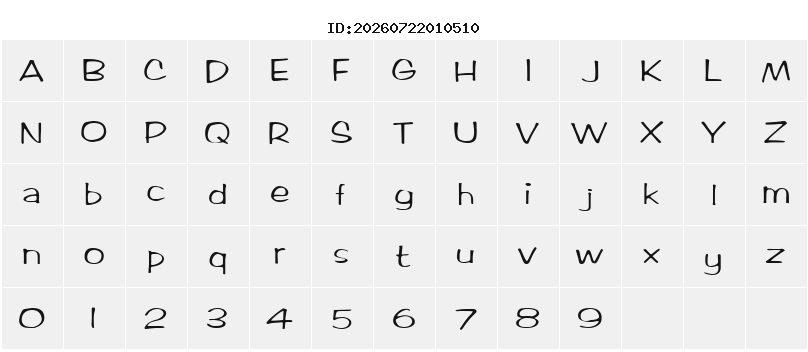
• Font Name: FZ HAND 2
• Font ID: FZ HAND 2
• Full Font Name: FZ HAND 2
• PostScript Name: FZ-HAND2
About FZ HAND 2.ttf
FZ HAND 2.ttf is a modern, elegant sans-serif font designed for ultimate readability and visual harmony. Perfect for branding, headlines, web design, and print materials.